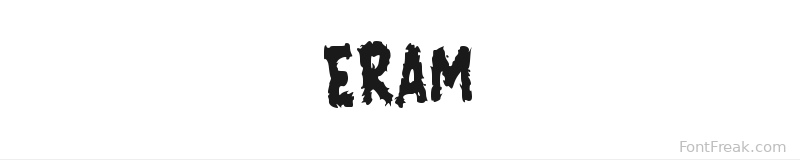
ERAM
About ERAM
The ERAM font, created by designer Wahyu Eka Prasetya, is a distinctive display typeface that captures attention with its unique visual style. This font features a bold, somewhat playful design characterized by irregular stroke weights and a slightly rough texture, giving it a hand-drawn appearance. The uneven edges and varied line thickness add an organic feel, making ERAM particularly engaging for various creative applications. The spacing between characters is generous, ensuring clarity and enhancing legibility, even at larger sizes.
ERAM is an excellent choice for a range of specific use cases. Its energetic aesthetic makes it ideal for designing vibrant movie posters, where it can effectively evoke the mood of the film. Additionally, it works well for restaurant menus, adding a fun and approachable vibe that can attract customers. The font also shines in branding materials, especially for businesses looking to convey a more casual and creative identity. Other potential uses include promotional flyers and social media graphics, where its eye-catching nature can help capture audience interest.
What sets the ERAM font apart is its ability to combine playfulness with readability, making it a versatile choice for both digital and print design. Whether you’re creating a striking advertisement or a whimsical invitation, the ERAM font free download offers a fresh and engaging option that can elevate any creative endeavor.